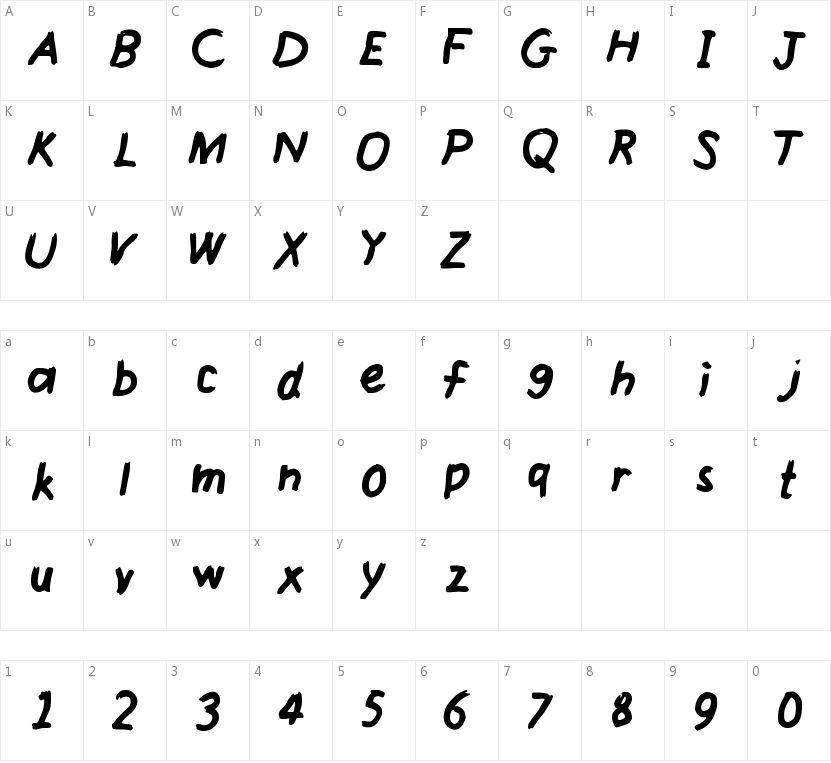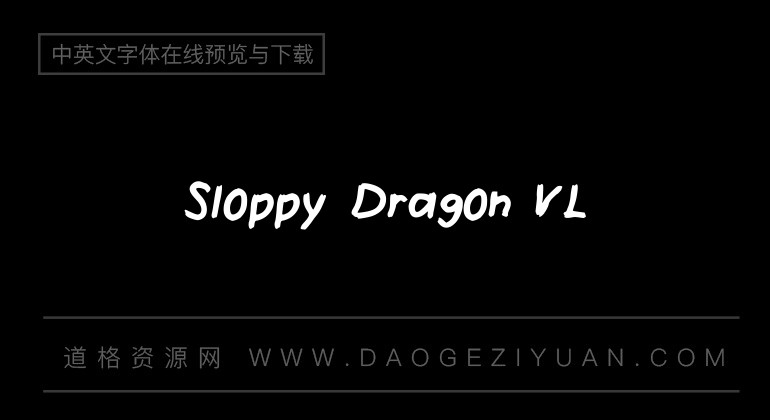
Sloppy Dragon VL
Sloppy Dragon VL font is a unique typeface that is characterized by a very pronounced handwriting style and irregular shapes. Its letters and numbers have some misplaced and deformed strokes, which makes the font look very interesting and vivid. Additionally, the Sloppy Dragon VL typeface has an almost handwriting-like natural flow that makes it ideal for use in both print and digital design. All in all, Sloppy Dragon VL font is a very unique, chic and full of personality, which can add a creative and interesting touch to any design project.
Sloppy Dragon VL is a very good handwriting art font, with a good visual sense, suitable for cultural propaganda design, commercial brand advertising and product packaging design and personalized text typesetting and other more scenes.